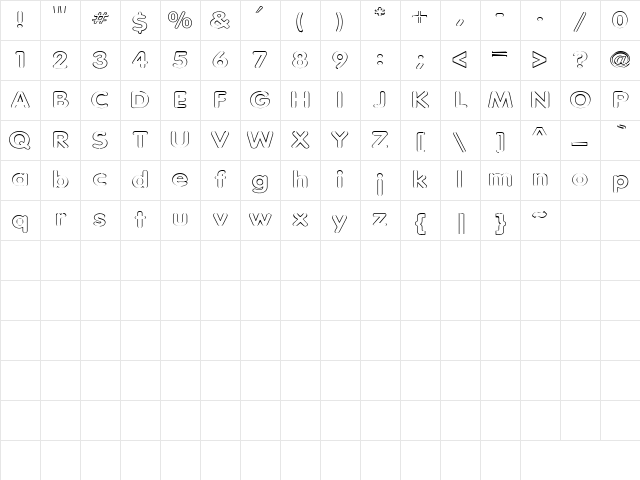
Noodles 4 Regular Free Font
Noodles 4 Regular
Complete Noodles 4 Regular glyph index. Displaying only characters natively supported by Noodles 4 Regular font.
Design Context for Noodles 4
Noodles 4 is a composed and adaptable typeface that performs quietly and consistently across a wide range of design contexts.